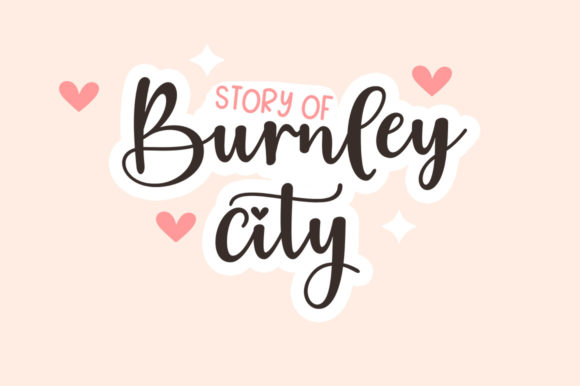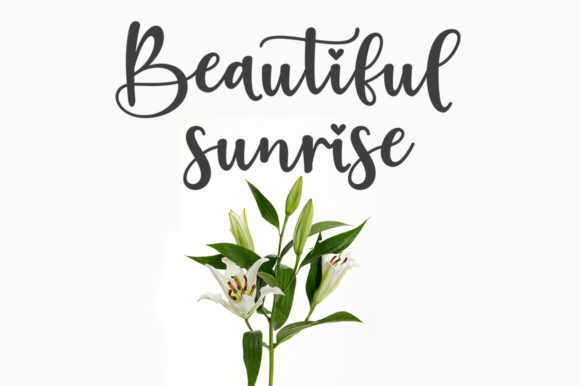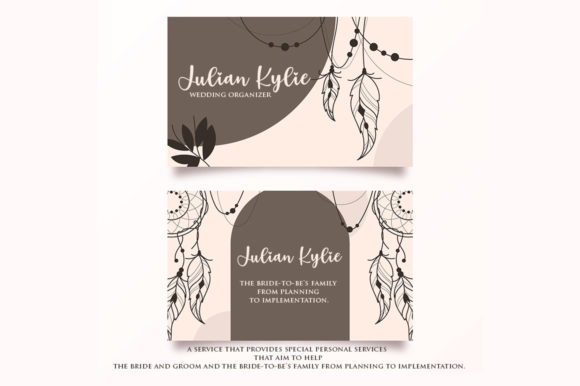
Falling in Love with the Perfect Font
Have you ever been scrolling through a design inspiration board and stumbled upon a beautiful, handwritten font that makes your heart skip a beat? For many designers, this moment is a creative epiphany – the moment when the perfect font can elevate an entire project from ordinary to extraordinary. That’s exactly what happens when you come across the Falling in Love Font.
This modern calligraphy design, available in Regular and swash styles, is a game-changer for designers looking to add a touch of elegance and sophistication to their work. Whether it’s a wedding invitation, product packaging, or book cover, the Falling in Love Font is sure to make a lasting impression. Its versatility and beauty make it a valuable addition to any designer’s toolkit.
With its casual yet refined aesthetic, the Falling in Love Font is a must-have for designers seeking to create memorable and impactful designs.
Falling in Love Font Key Features
- Unique Characteristics: Whimsical, cursive script with a romantic and elegant feel, perfect for wedding invitations, love letters, and other sentimental designs.
- Font Style: Script, making it ideal for adding a personal touch to digital and print materials.
Falling in Love Font Review
Falling in love with a font is a rare occurrence, but this one came close. ✨ I love the playful, handwritten feel it brings to any design project. The font is perfect for titles, headings, and even body text in informal settings like blogs or social media posts. The script-like design adds a touch of romance and whimsy that’s hard to resist.
- Unique, handwritten feel that sets it apart from other fonts
- Perfect for titles, headings, and informal body text
- Playful, romantic vibe that’s great for creative projects
- Not ideal for formal or professional projects where a more formal font is required
- Can be difficult to read in smaller font sizes or at a distance
- Lack of customization options for line spacing and letter spacing
Overall, I’d give the Falling in Love Font a solid 4 out of 5 stars. It’s a fun, creative font that’s perfect for informal projects, but may not be the best choice for more formal designs. With some tweaks to its limitations, it could be an absolute winner.
Falling in Love Font: A Practical Application Guide
The Falling in Love Font is a beautiful, cursive script font perfect for adding a touch of romance to your designs. To use it, follow these steps:
Use the Falling in Love Font to create romantic invitations, wedding stationery, or Valentine’s Day cards. Experiment with different font sizes and colors to add emphasis to your text.
The Falling in Love Font is perfect for:
- Valentine’s Day cards and gifts
- Romantic quotes and sayings
- Wedding vows and ceremony programs